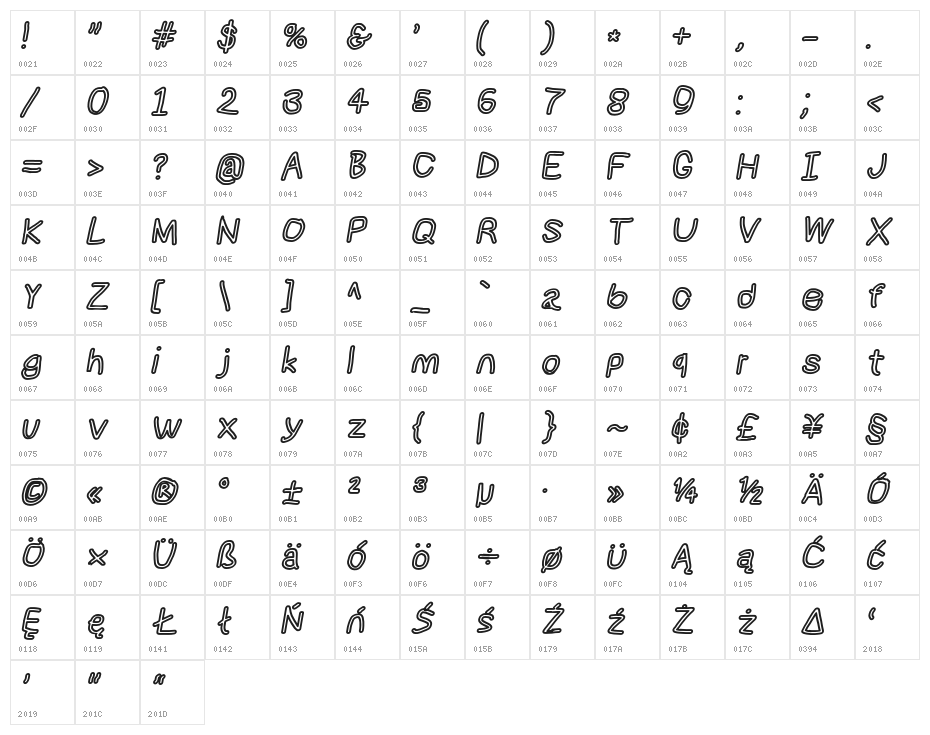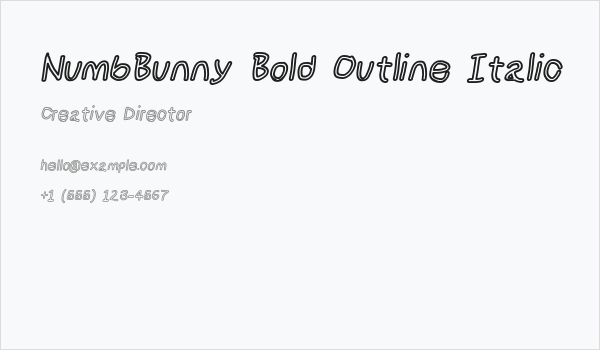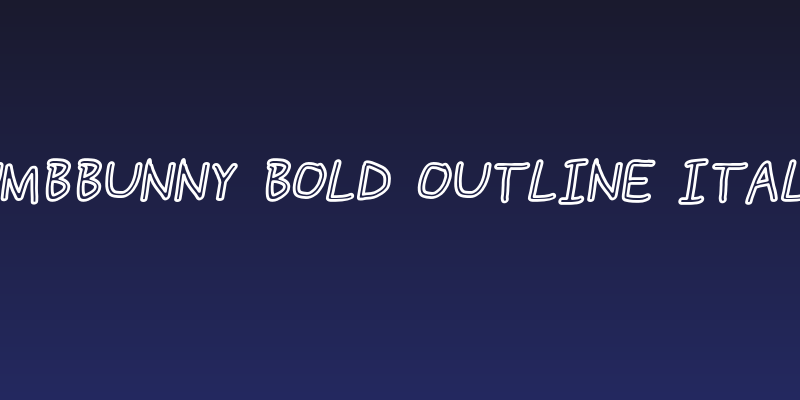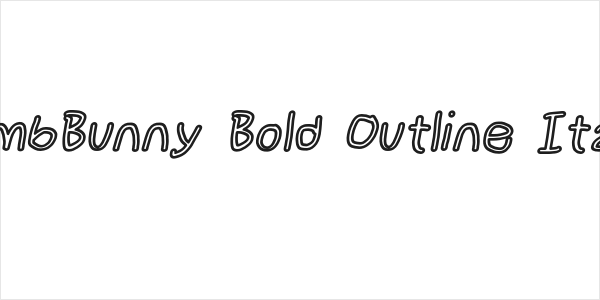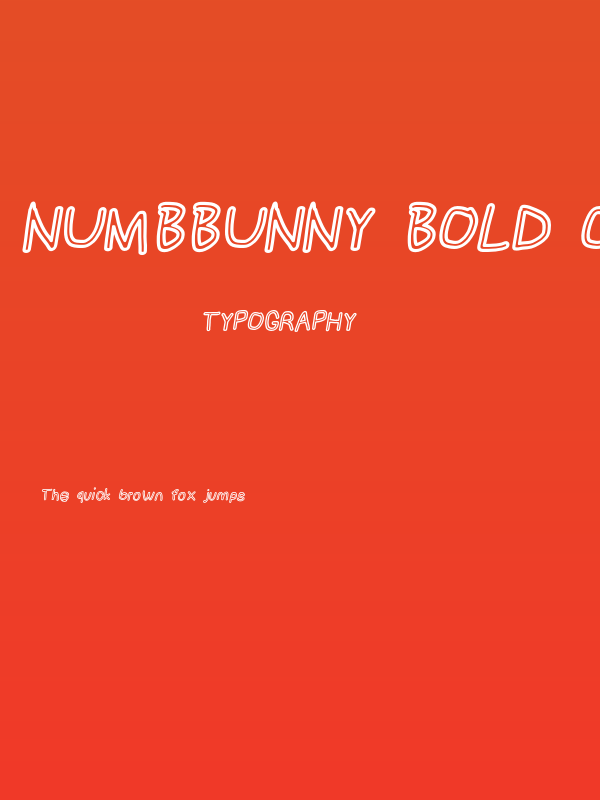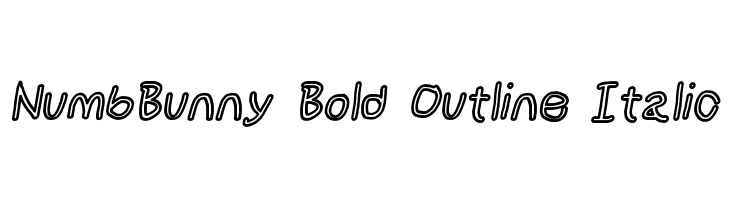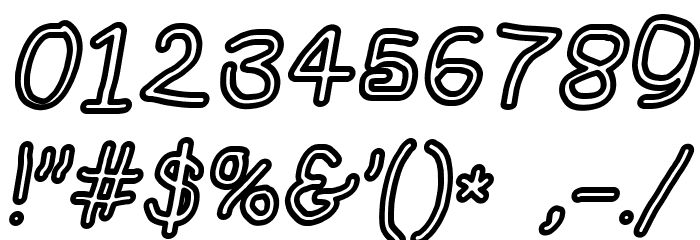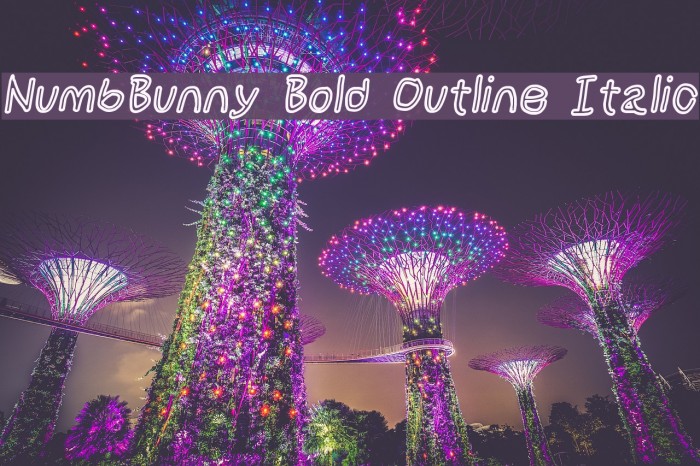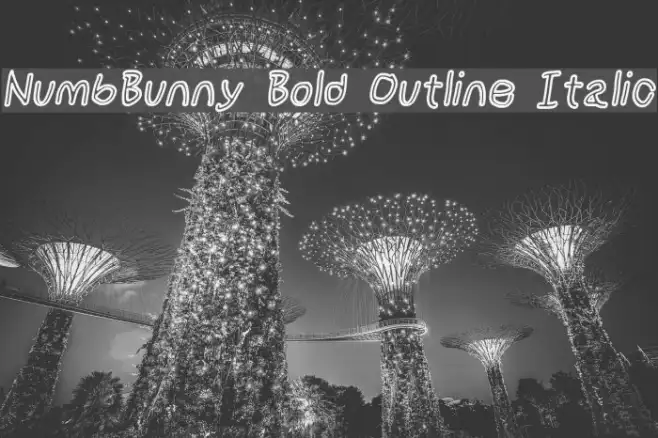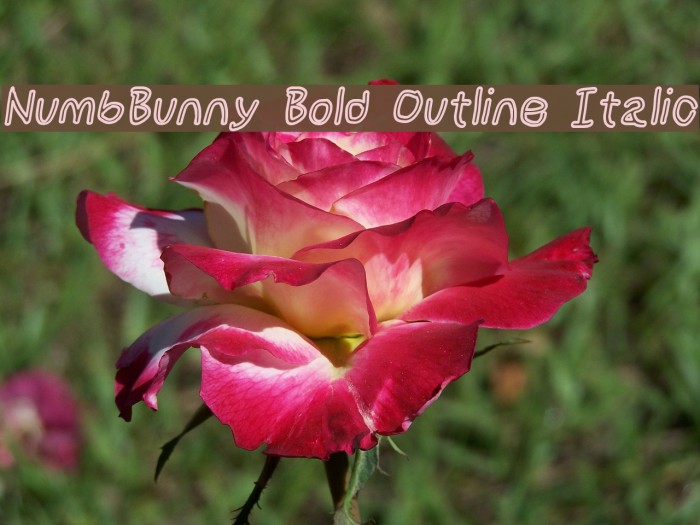
NumbBunny Bold Outline Italic Font
NumbBunny Bold Outline Italic Description
This playful and bold font features an outline style with a distinct italic slant, giving it a dynamic and energetic appearance. The characters are well-defined with a consistent stroke width, creating a uniform look across both uppercase and lowercase letters. The numbers and special characters maintain the same outlined style, ensuring cohesion throughout. Its whimsical design makes it suitable for projects that require a fun and engaging typeface.
| Overall Style | Playful |
| Proposed Projects | Ideal for children's book covers, playful branding, event posters, and creative social media graphics. |